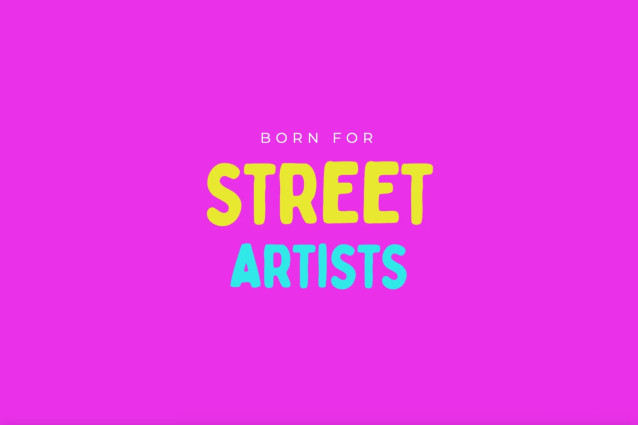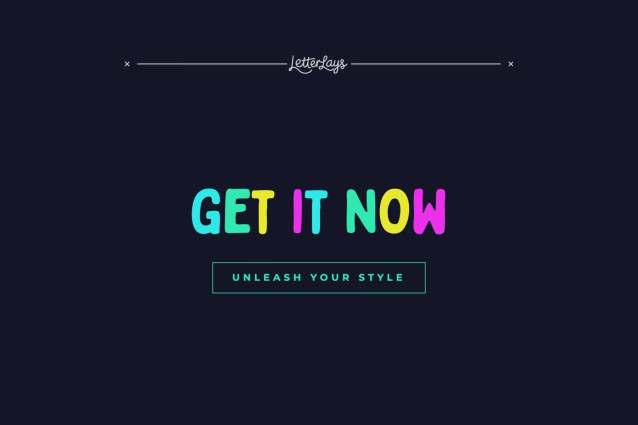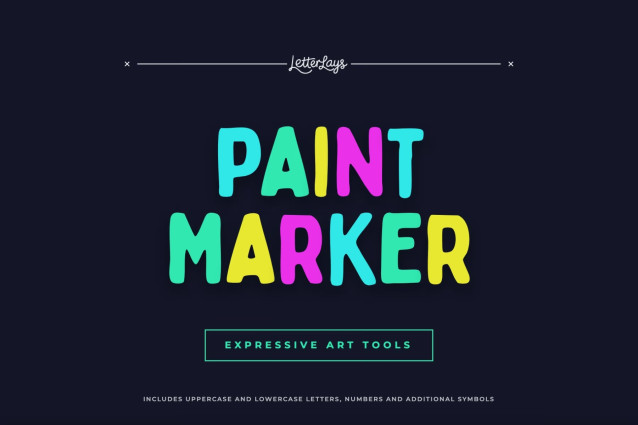
Paint Marker Font
🖌️ Paint Marker is a premium brush font crafted for creative professionals who demand bold energy and expression in their typography. This versatile typeface features realistic hand-painted marker textures and an urban aesthetic, making it an essential tool for street-style branding, energetic editorial design, and high-impact digital projects. Each character is designed with a specific stroke that adds a sophisticated yet raw touch to your visual narratives.
🖌️ The font’s unique glyphs and street-art additions provide a state-of-the-art look that stands out in any professional environment. Whether you are creating a bespoke logo or an urban headline, Paint Marker offers the flexibility and professional polish needed to make your work truly memorable. Integrate this high-quality asset into your workflow to achieve a seamless blend of urban style and brush-stroke storytelling power across all your designs. 🖌️